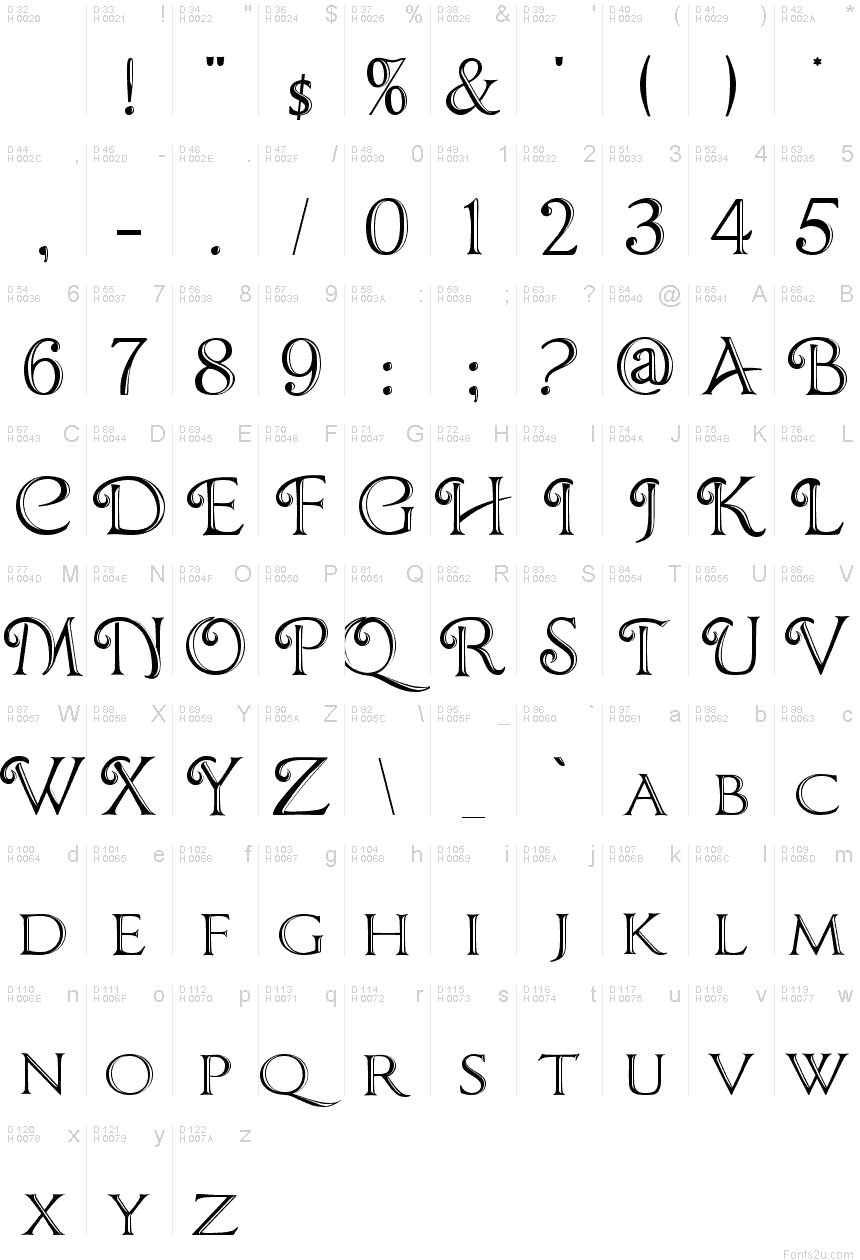
ChocolateBoxDecorative
Chocolate Box Decorative font by PJL is a free retro decorative font with the glossy charm of old candy packaging. Its long, curling strokes and slim, elegant structure give headlines a wrapped-ribbon feel—ornate without turning muddy, nostalgic without slipping into costume.
Chocolate Box Decorative shines on chocolate labels, café menus, boutique signage, wedding stationery, book covers, holiday cards, and vintage poster titles. This free font works best at larger sizes, and it pairs nicely with a quiet serif or clean sans when you want those flourished forms to do the talking.